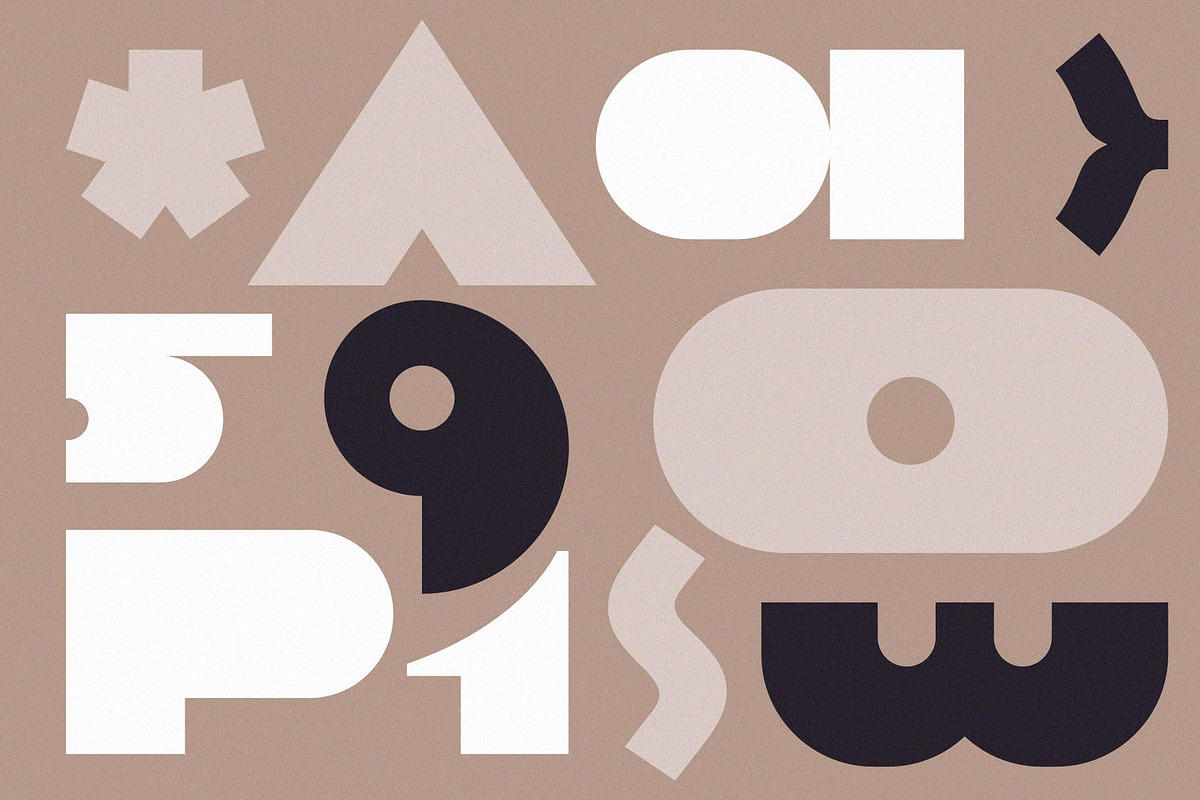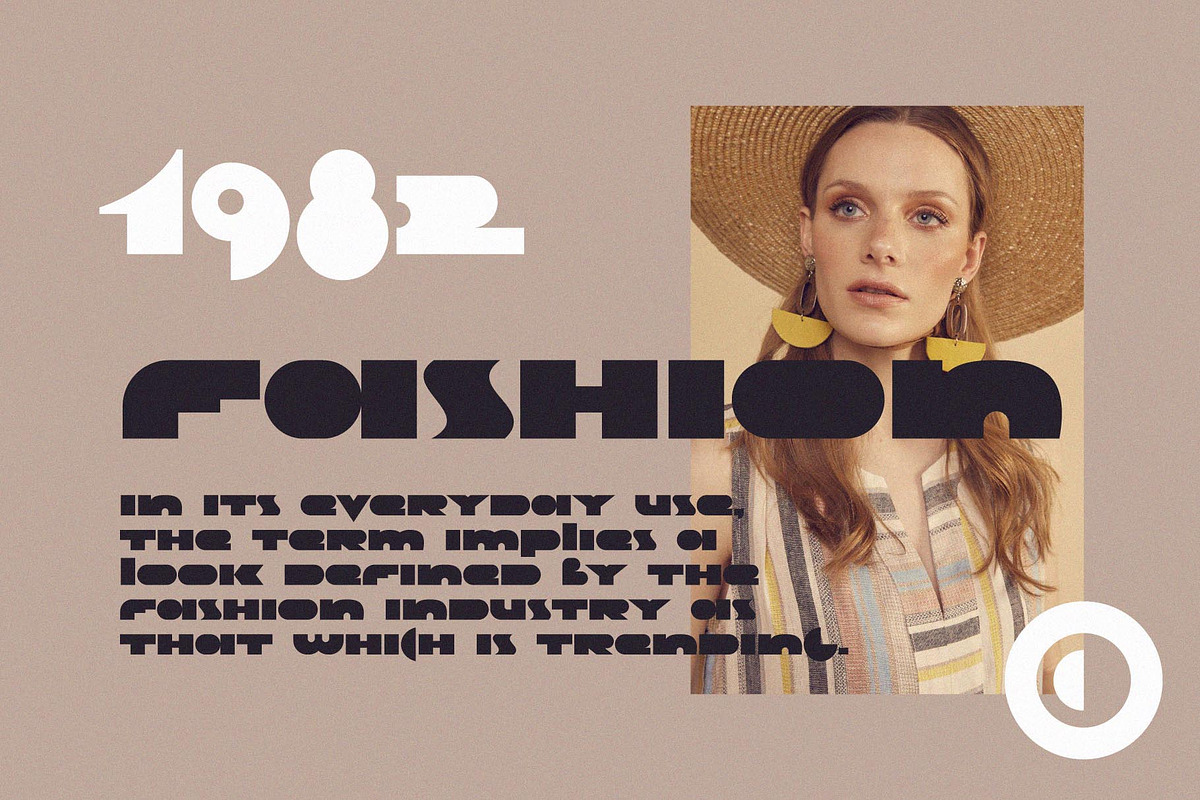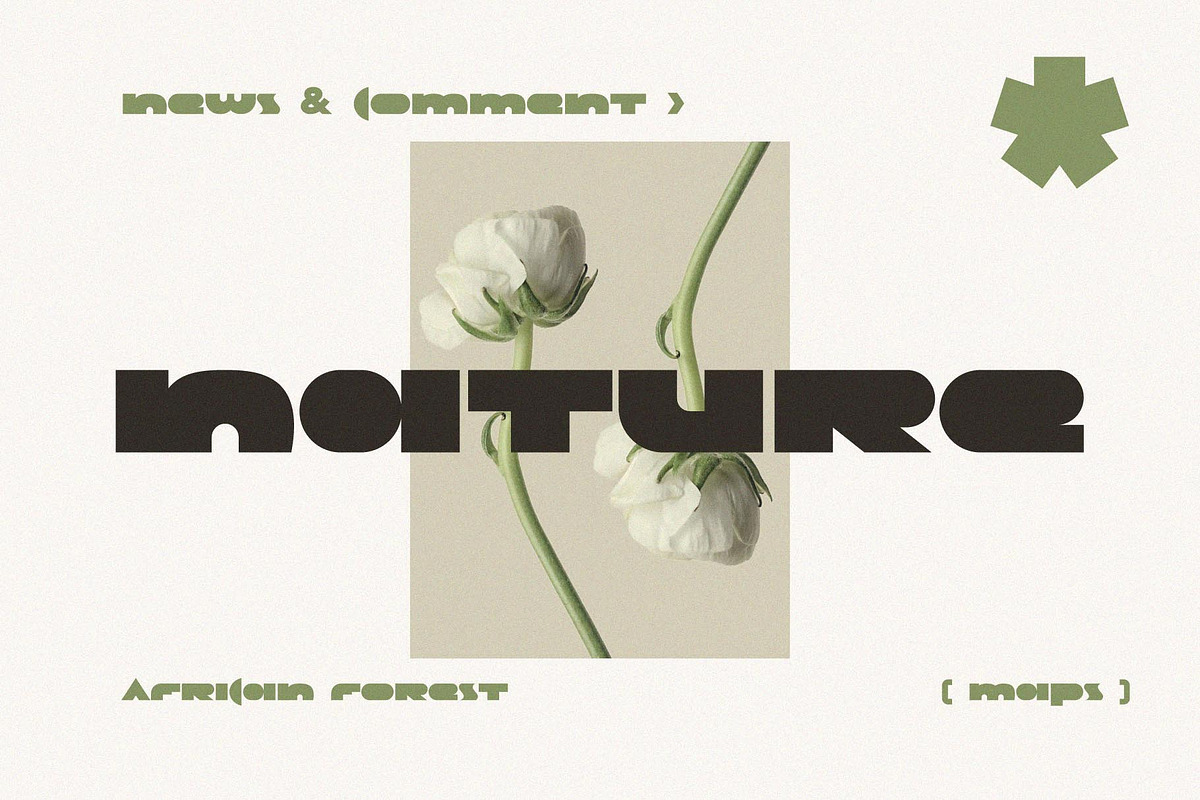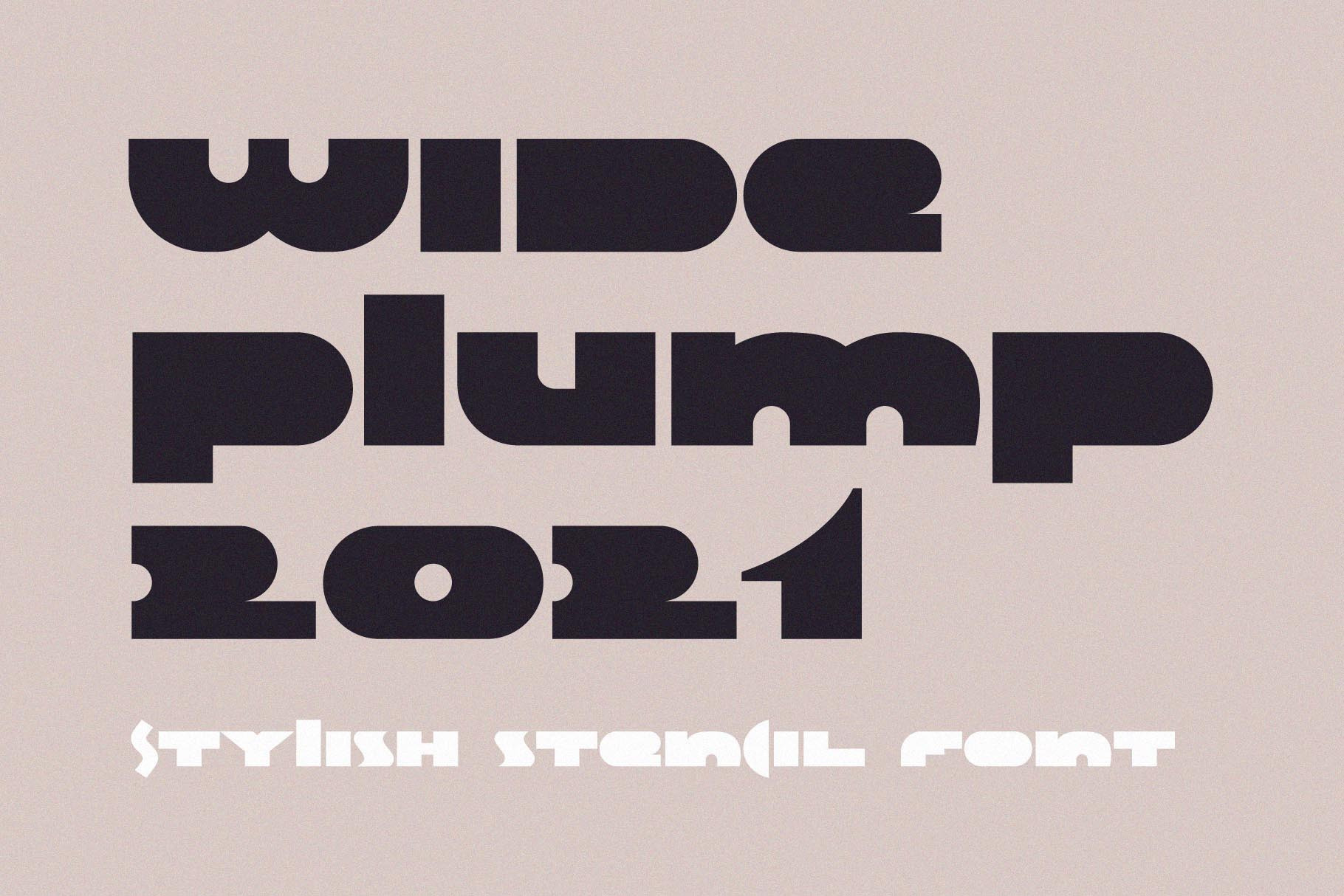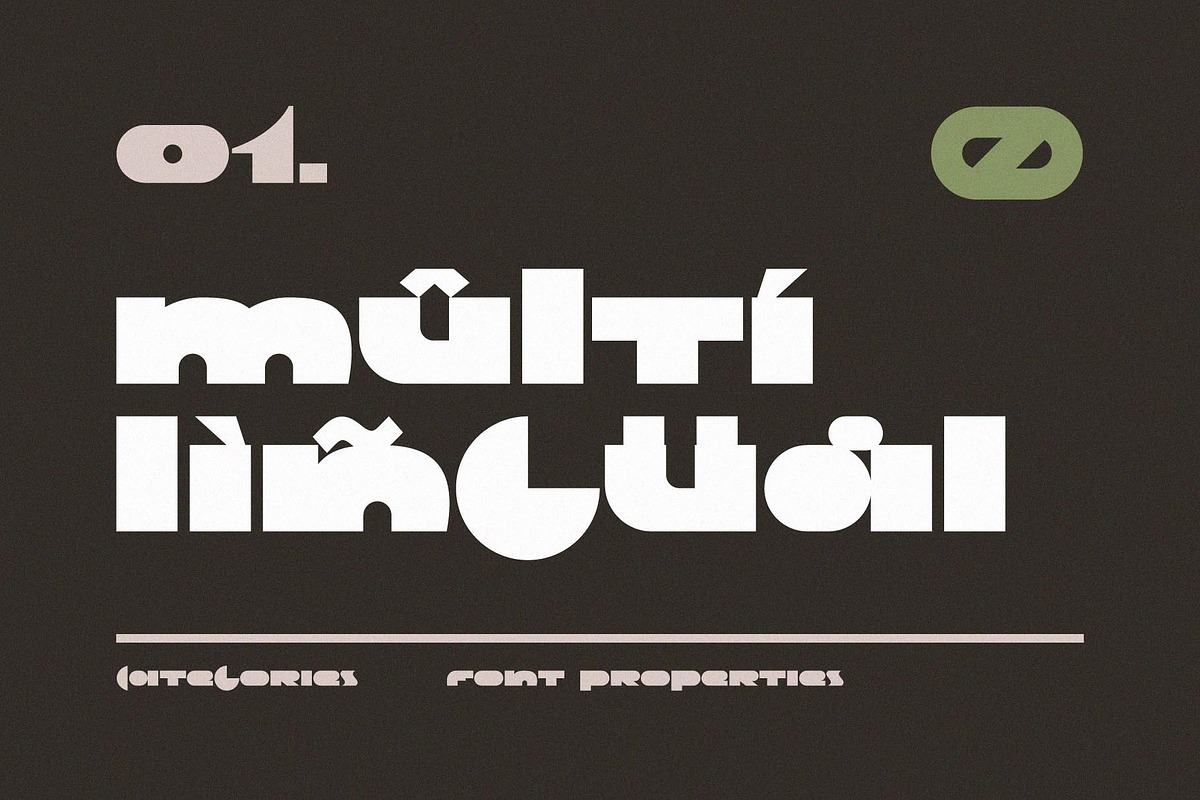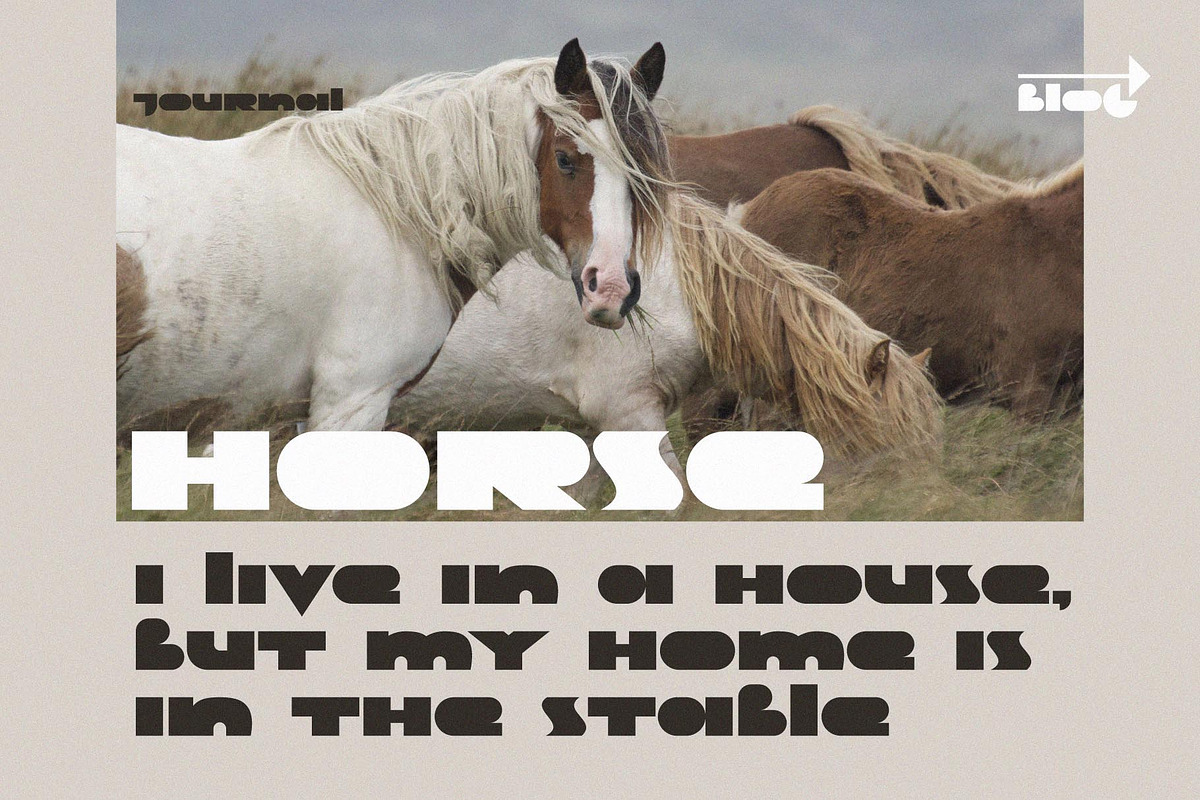
Wide Plump Stylish Stencil Font
Wide Plump is a bold Stylish Stencil Font. Most of the glyphs are without any holes, it's provide powerful impact. You can use it in fashion magazines covers, short advertise slogan and so on.